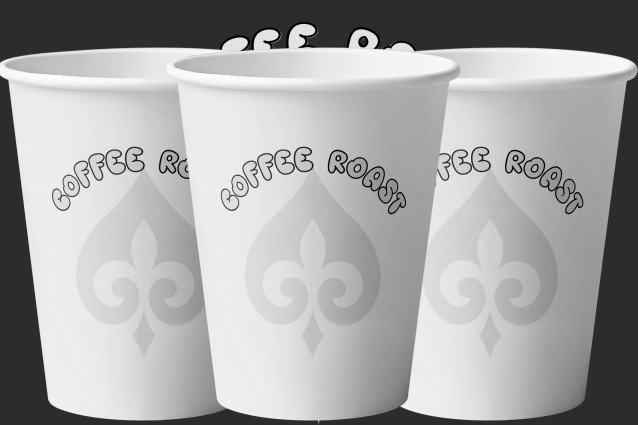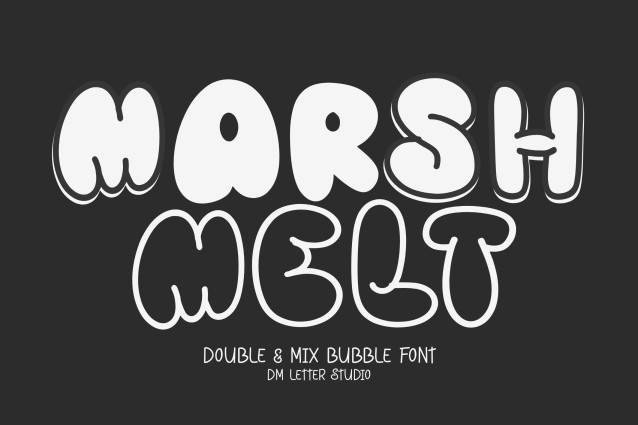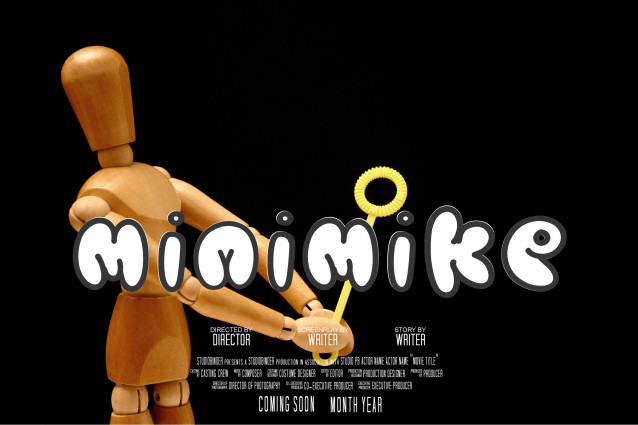
Marshmelt Display Font
Marshmelt Display Font is a soft and playful display font duo that comes in two styles: Regular and Outline. With rounded edges and a puffy, marshmallow-inspired feel, this duo is perfect for designs that need warmth, fun, and charm. Use the solid style for bold headlines or pair it with the outline version for layered effects that pop in print and digital designs.